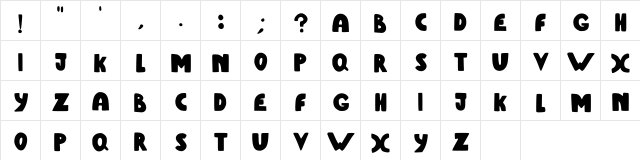
Useless Army Font Regular
Design Context for Useless Army Font Typeface
Useless Army Font draws on military and industrial lettering traditions, with forms that communicate strength and precision.
Designed for tactical branding, military-inspired apparel, action game UI, and utility-focused signage.
Font Pairing: Use alongside a condensed or geometric sans for supporting copy — keep the pairing bold, functional, and free of ornament.
Pro Tip: Use Useless Army Font at medium-to-large sizes where its utilitarian structure can be appreciated — the character detail gets lost at small sizes.